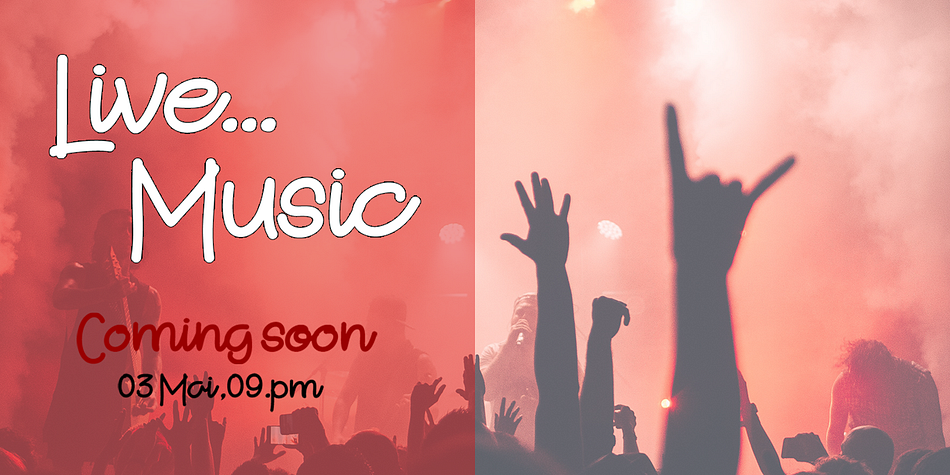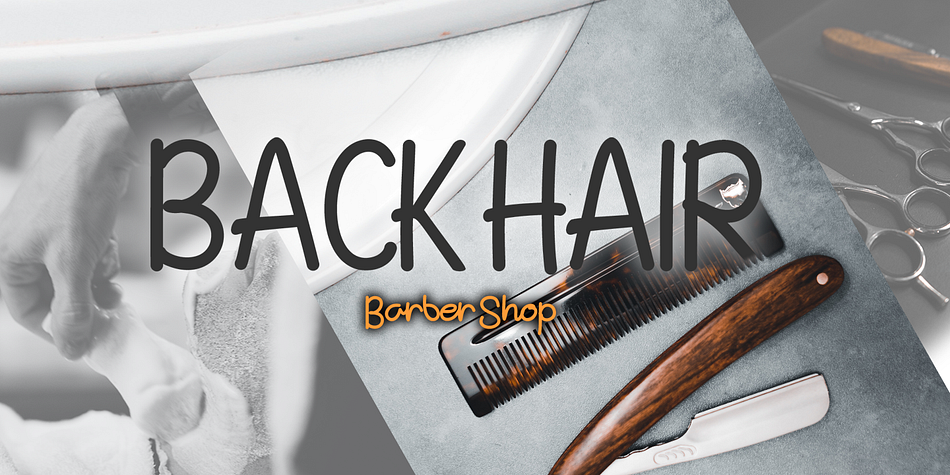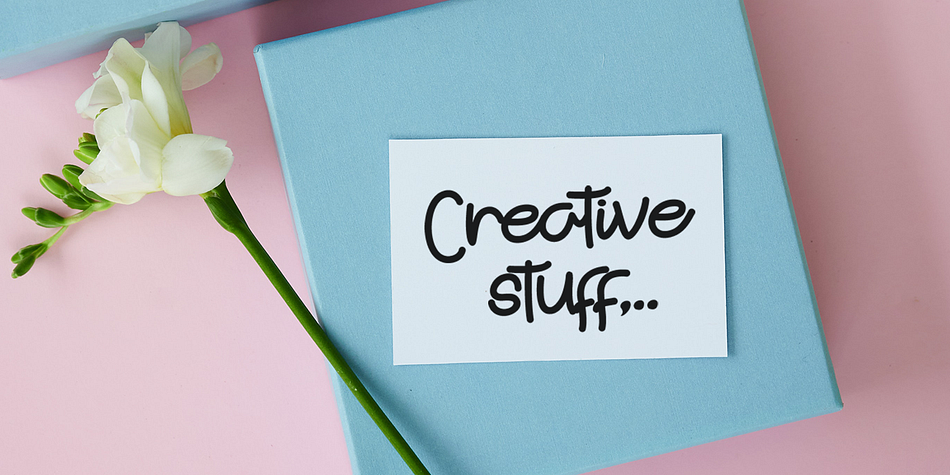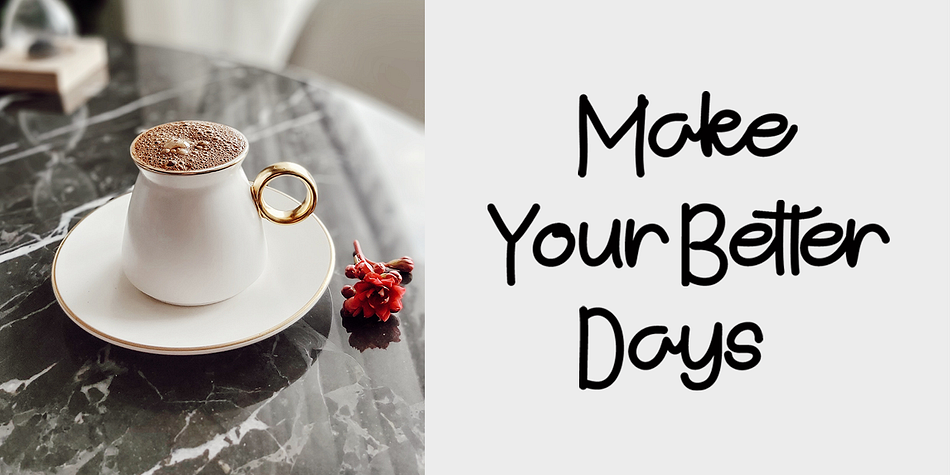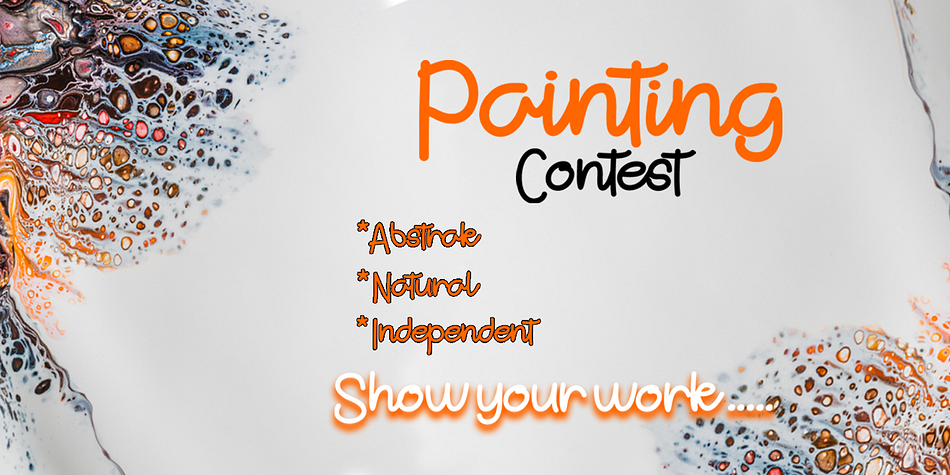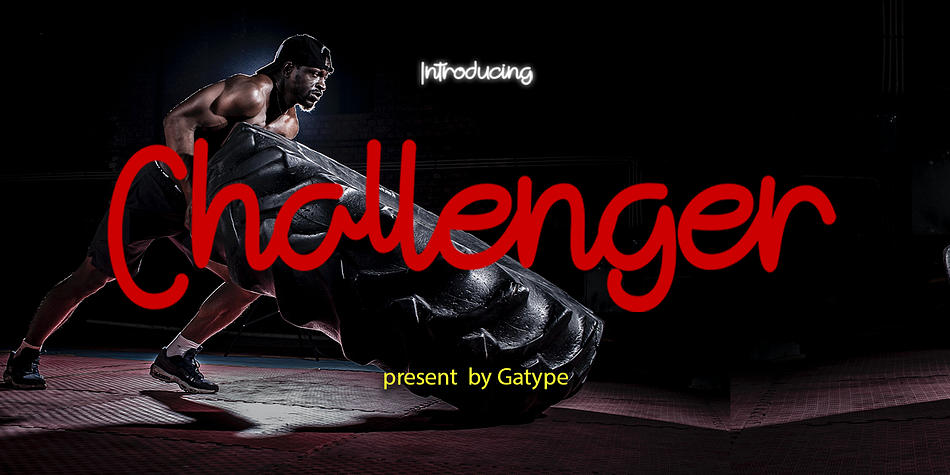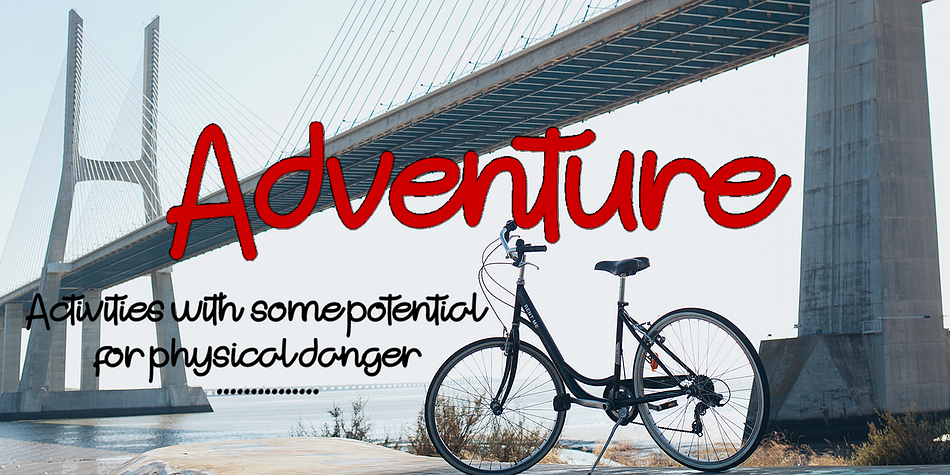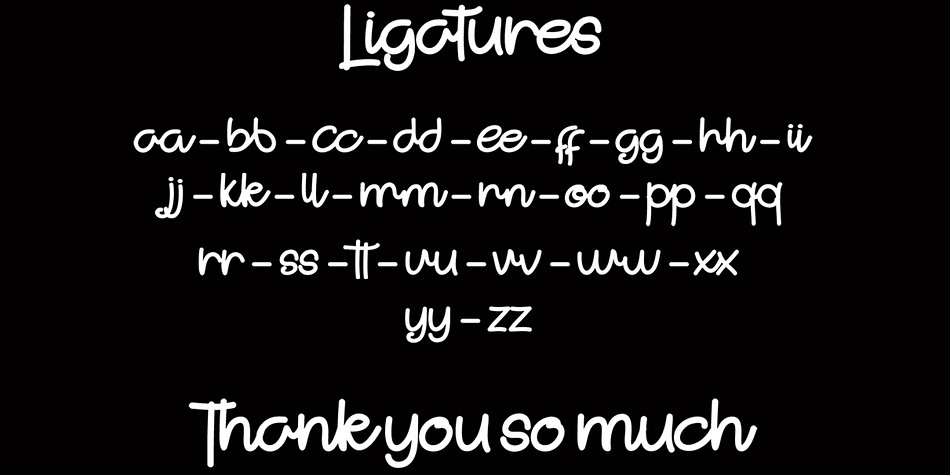
Challenger
Challenger is a brush script font family published by Gatype.
Challenger is a beautiful Handwritten Font, perfect for logo design, branding, apparel design, signage, posters, wedding invitations and more! My goal with this font was to create an easy-to-read script font that would work for a variety of purposes. Challenger scripts are encoded with PUA Unicode, which allows full access to all additional characters without having to design special software. Mac users can use Font Book , and Windows users can use Character Map to view and copy any additional characters to paste into your favorite text editor/application.